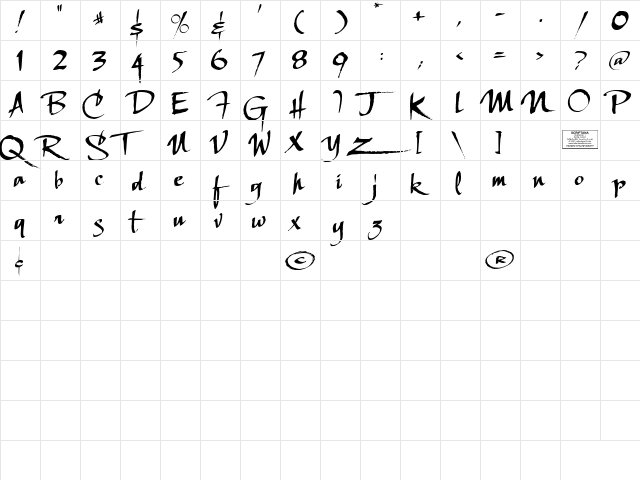
Scriptana Regular Lhf Regular
Design Context for Scriptana Regular Lhf Typeface
Scriptana Regular Lhf brings a calligraphic fluidity to the page — its connecting strokes and expressive curves give it an unmistakably human quality.
Font Pairing: Combine Scriptana Regular Lhf with a simple geometric sans for maximum contrast — the tension between flowing curves and clean structure is a classic typographic pairing.
Pro Tip: Pair Scriptana Regular Lhf with a clean sans-serif for supporting text. The contrast between fluid script and geometric structure creates an elegant typographic hierarchy.